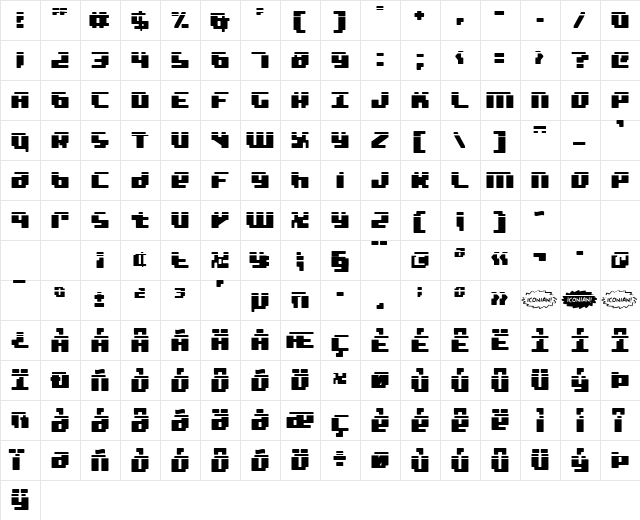
Complete bad robot laser Laser glyph index. Displaying only characters natively supported by bad robot laser Laser font.
bad robot laser is a composed and adaptable typeface that performs quietly and consistently across a wide range of design contexts.